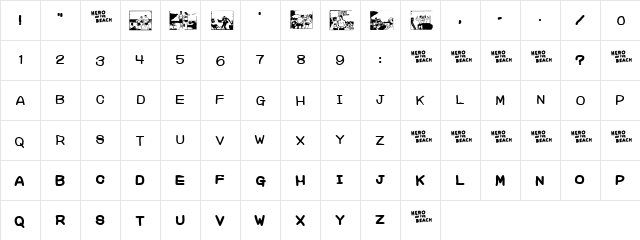
Charles Atlas Regular
Design Context for Charles Atlas Typeface
Charles Atlas offers clean, dependable letterforms without strong stylistic allegiance, making it a practical choice for designers who need flexibility.